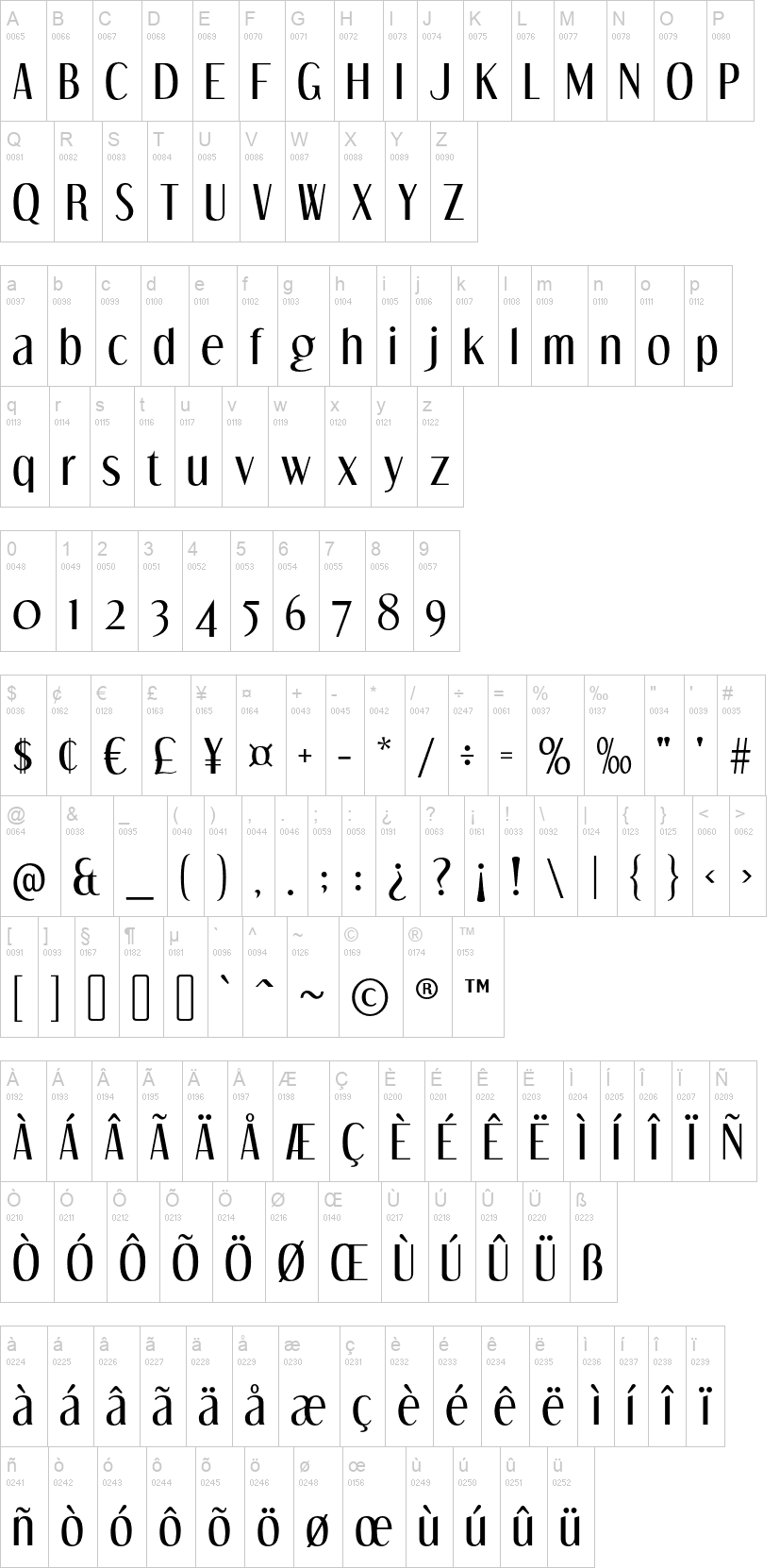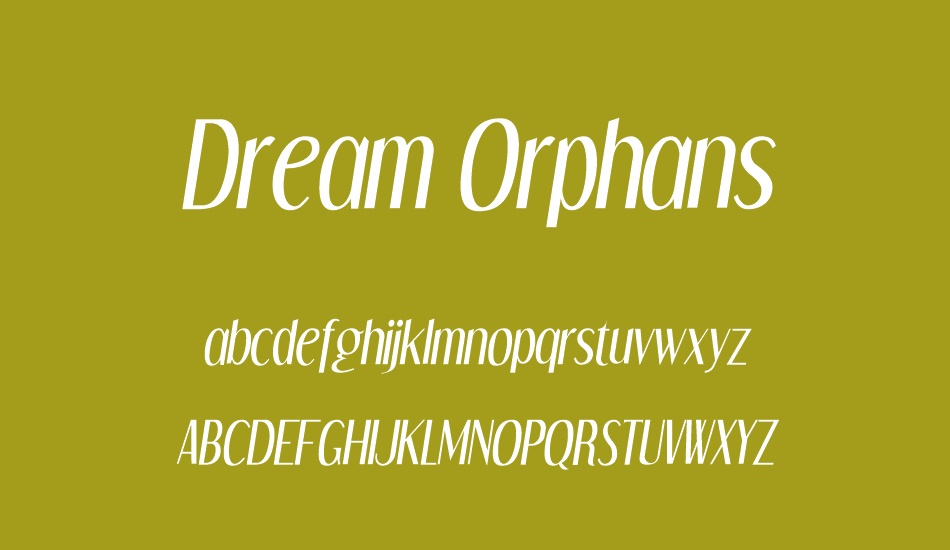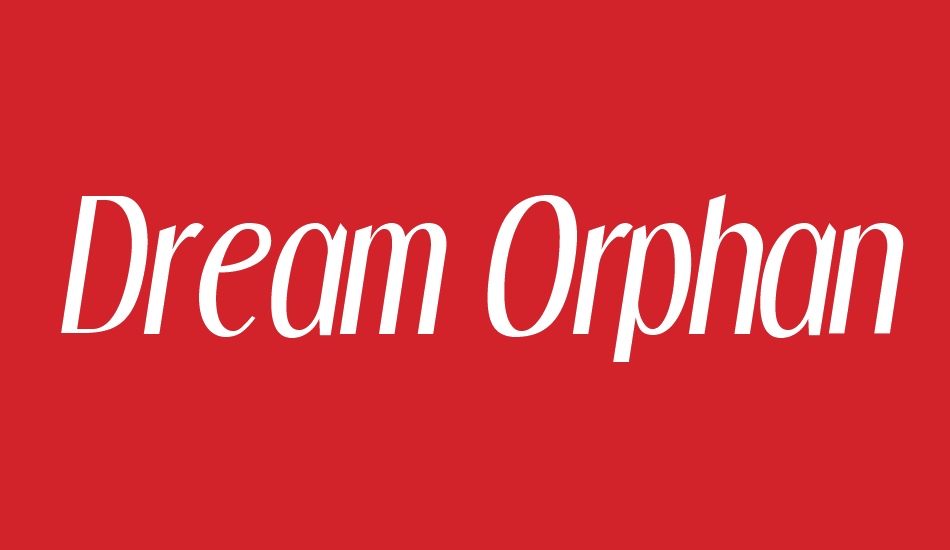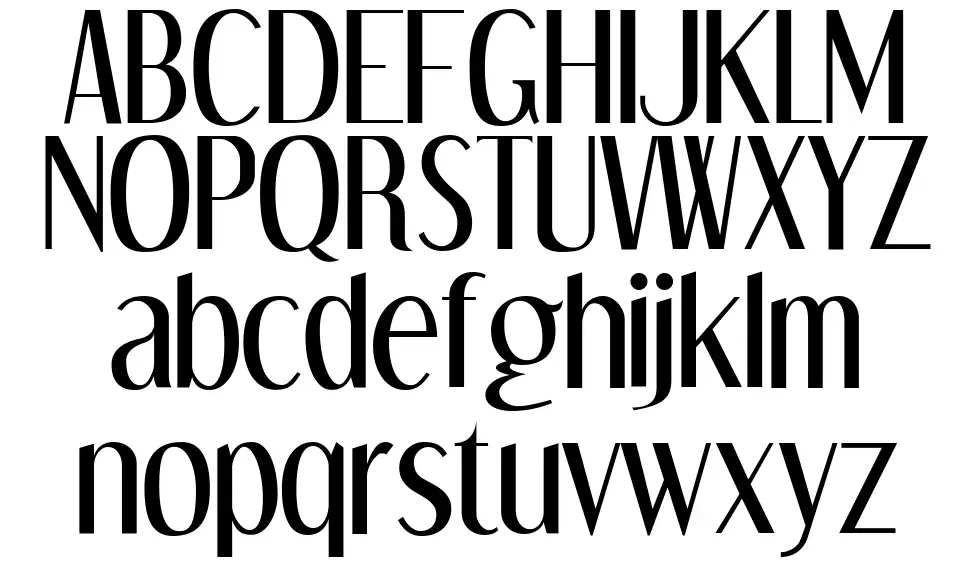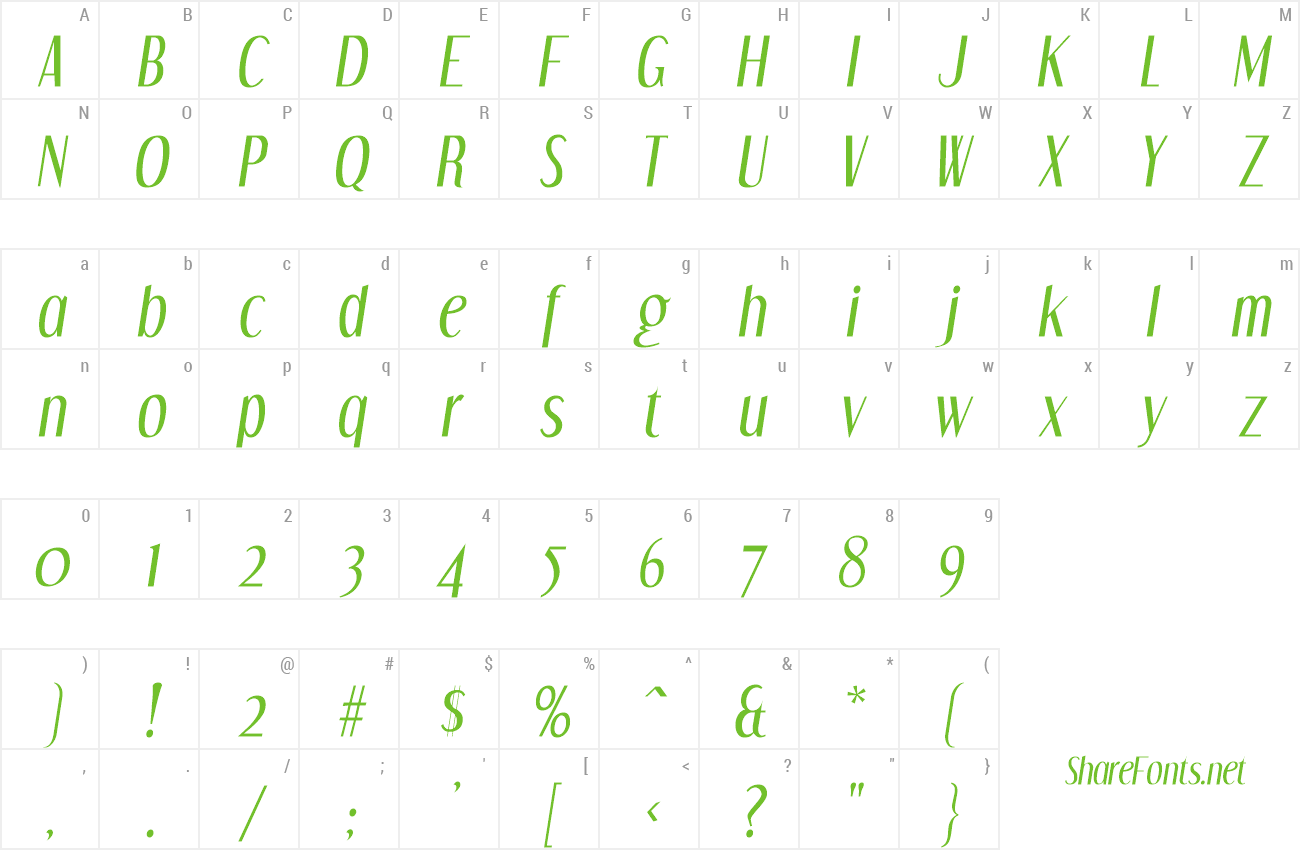
Dream Orphans Font
Dream Orphans Font - The quaggy curves are charming, as this font adds a classic. While some might find the quaggy curves charming, you. Web dream orphans is a condensed, humanist sans serif display font. Web dream orphans is a headline typeface with a simple, homey feel. Web dream orphans is a condensed, humanist sans serif display font.
Web dream orphans is a headline typeface with a simple, homey feel. Web dream orphans is a condensed, humanist sans serif display font. The quaggy curves are charming, as this font adds a classic. While some might find the quaggy curves charming, you. Web dream orphans is a condensed, humanist sans serif display font.
Web dream orphans is a condensed, humanist sans serif display font. The quaggy curves are charming, as this font adds a classic. Web dream orphans is a headline typeface with a simple, homey feel. While some might find the quaggy curves charming, you. Web dream orphans is a condensed, humanist sans serif display font.
Dream Orphans Font by Typodermic · Creative Fabrica Free commercial
Web dream orphans is a condensed, humanist sans serif display font. Web dream orphans is a headline typeface with a simple, homey feel. While some might find the quaggy curves charming, you. Web dream orphans is a condensed, humanist sans serif display font. The quaggy curves are charming, as this font adds a classic.
Dream Orphans Font
Web dream orphans is a headline typeface with a simple, homey feel. Web dream orphans is a condensed, humanist sans serif display font. The quaggy curves are charming, as this font adds a classic. Web dream orphans is a condensed, humanist sans serif display font. While some might find the quaggy curves charming, you.
The quaggy curves are charming, as this font adds a classic. Web dream orphans is a condensed, humanist sans serif display font. Web dream orphans is a headline typeface with a simple, homey feel. Web dream orphans is a condensed, humanist sans serif display font. While some might find the quaggy curves charming, you.
The quaggy curves are charming, as this font adds a classic. Web dream orphans is a headline typeface with a simple, homey feel. Web dream orphans is a condensed, humanist sans serif display font. Web dream orphans is a condensed, humanist sans serif display font. While some might find the quaggy curves charming, you.
The quaggy curves are charming, as this font adds a classic. While some might find the quaggy curves charming, you. Web dream orphans is a condensed, humanist sans serif display font. Web dream orphans is a condensed, humanist sans serif display font. Web dream orphans is a headline typeface with a simple, homey feel.
Dream Orphans font by Typodermic Fonts FontRiver
The quaggy curves are charming, as this font adds a classic. Web dream orphans is a headline typeface with a simple, homey feel. Web dream orphans is a condensed, humanist sans serif display font. While some might find the quaggy curves charming, you. Web dream orphans is a condensed, humanist sans serif display font.
While some might find the quaggy curves charming, you. Web dream orphans is a condensed, humanist sans serif display font. Web dream orphans is a headline typeface with a simple, homey feel. The quaggy curves are charming, as this font adds a classic. Web dream orphans is a condensed, humanist sans serif display font.
Dream Orphans Bold Italic Font
While some might find the quaggy curves charming, you. Web dream orphans is a headline typeface with a simple, homey feel. The quaggy curves are charming, as this font adds a classic. Web dream orphans is a condensed, humanist sans serif display font. Web dream orphans is a condensed, humanist sans serif display font.
Dream Orphans Font Download fonts, Online fonts, Font graphic
While some might find the quaggy curves charming, you. Web dream orphans is a condensed, humanist sans serif display font. The quaggy curves are charming, as this font adds a classic. Web dream orphans is a condensed, humanist sans serif display font. Web dream orphans is a headline typeface with a simple, homey feel.
Dream Orphans Font download free
Web dream orphans is a condensed, humanist sans serif display font. The quaggy curves are charming, as this font adds a classic. While some might find the quaggy curves charming, you. Web dream orphans is a headline typeface with a simple, homey feel. Web dream orphans is a condensed, humanist sans serif display font.
Web Dream Orphans Is A Condensed, Humanist Sans Serif Display Font.
While some might find the quaggy curves charming, you. Web dream orphans is a condensed, humanist sans serif display font. The quaggy curves are charming, as this font adds a classic. Web dream orphans is a headline typeface with a simple, homey feel.